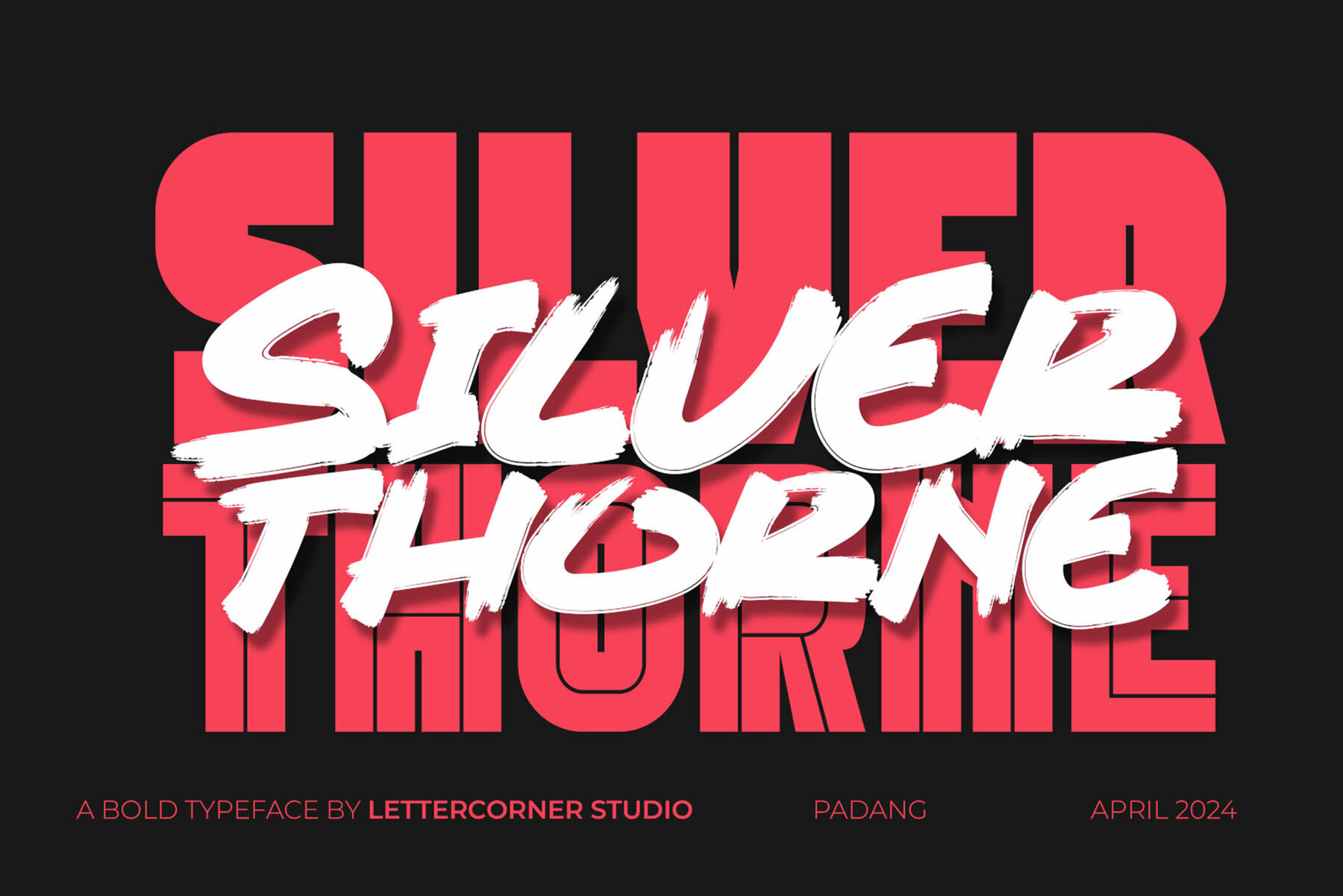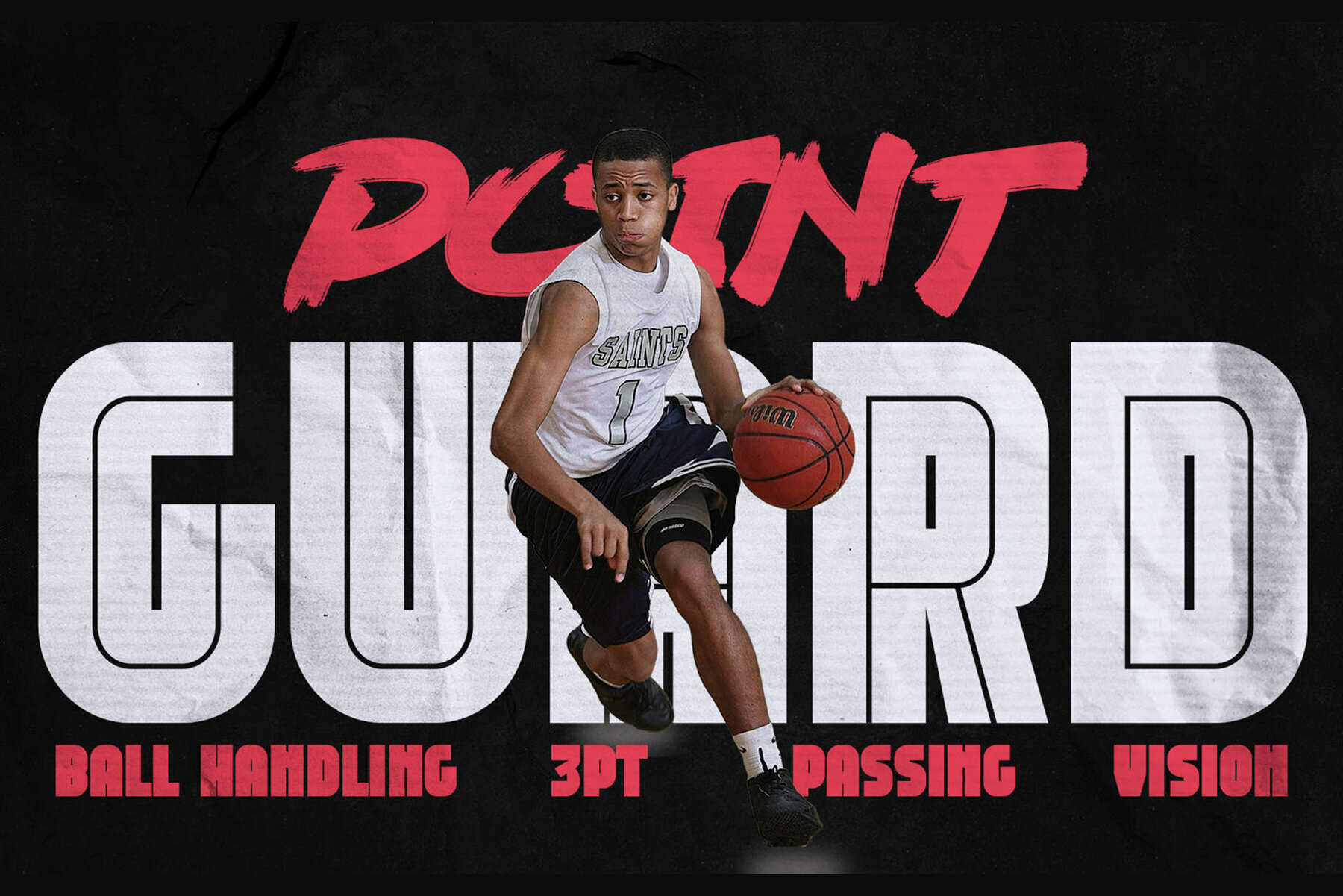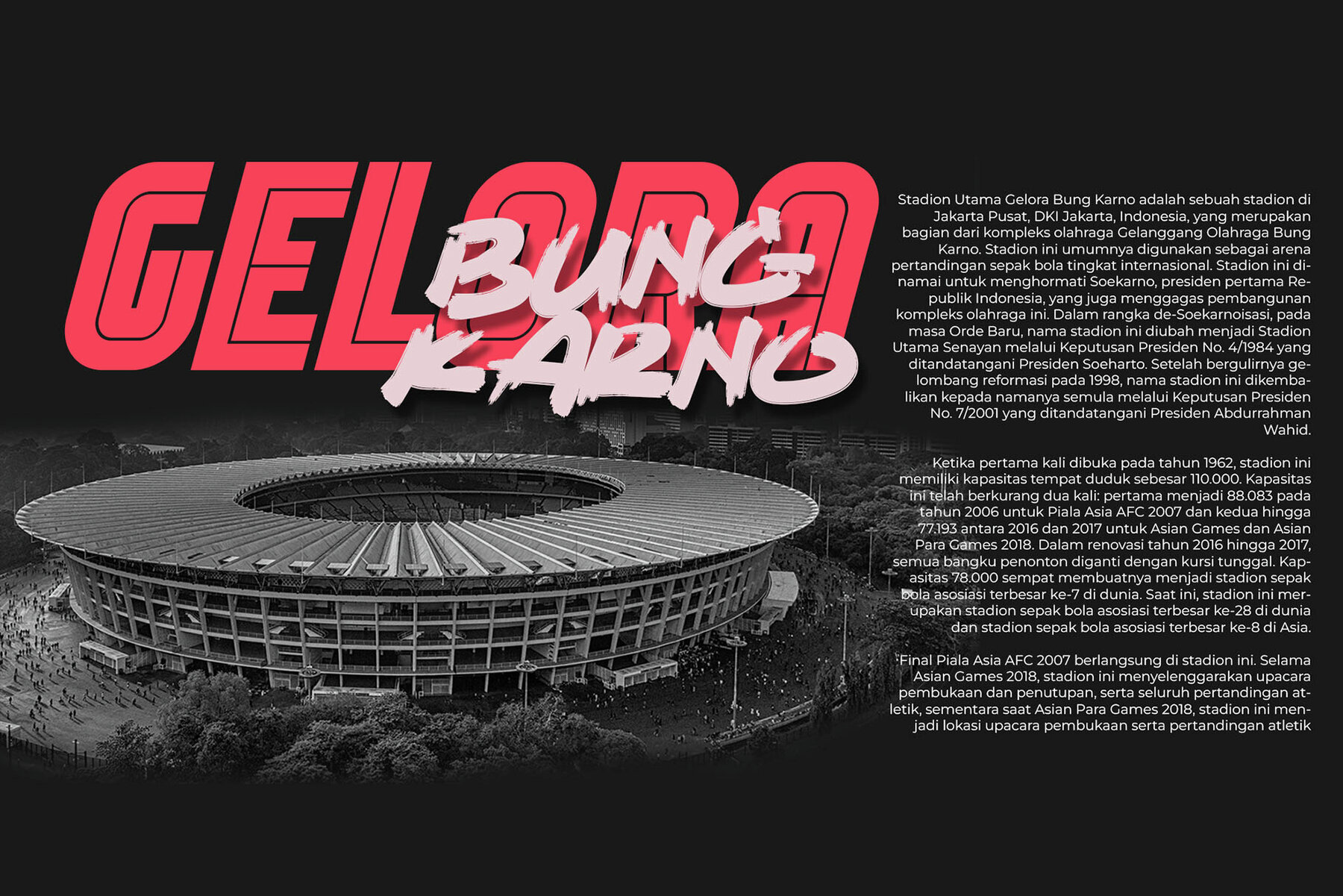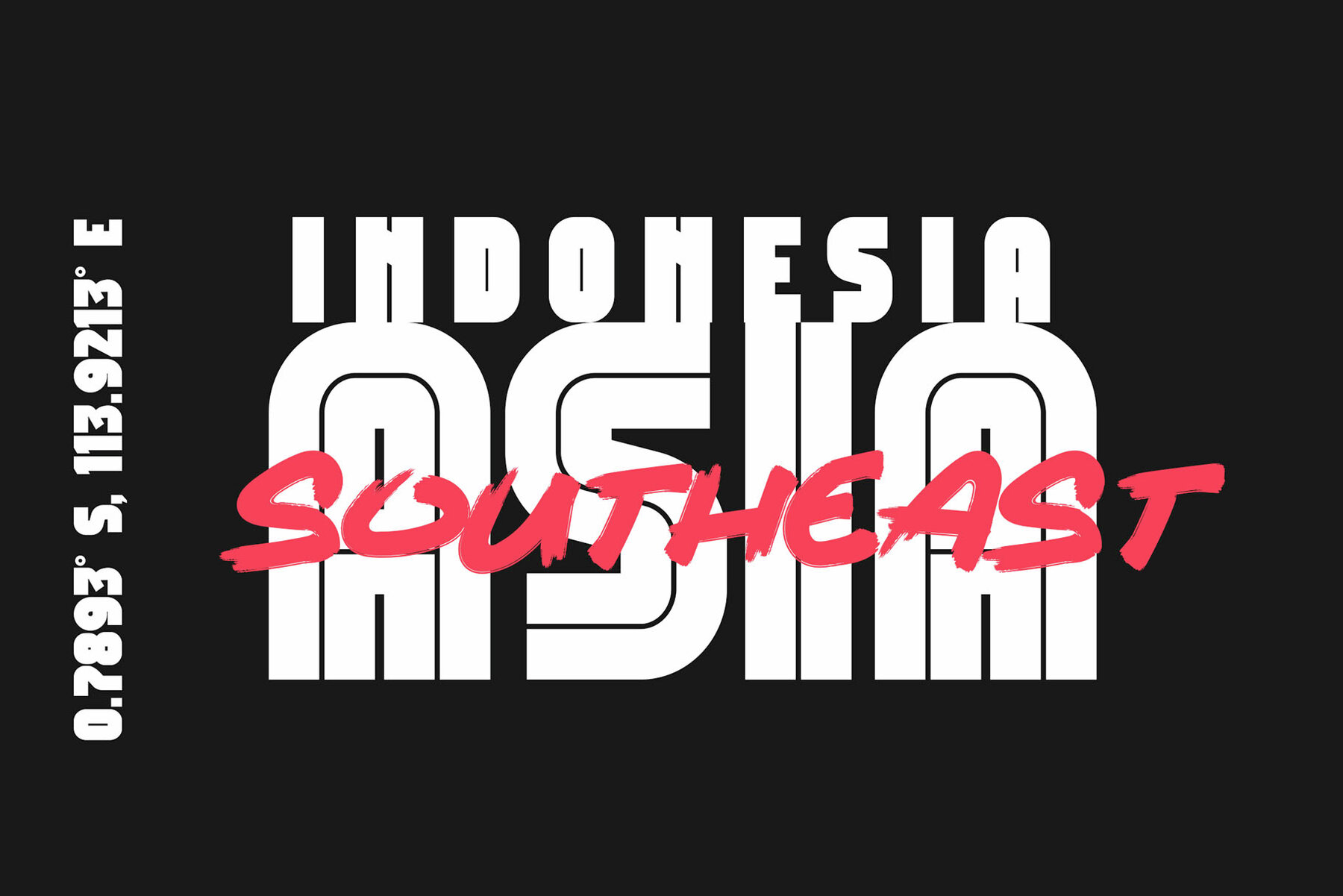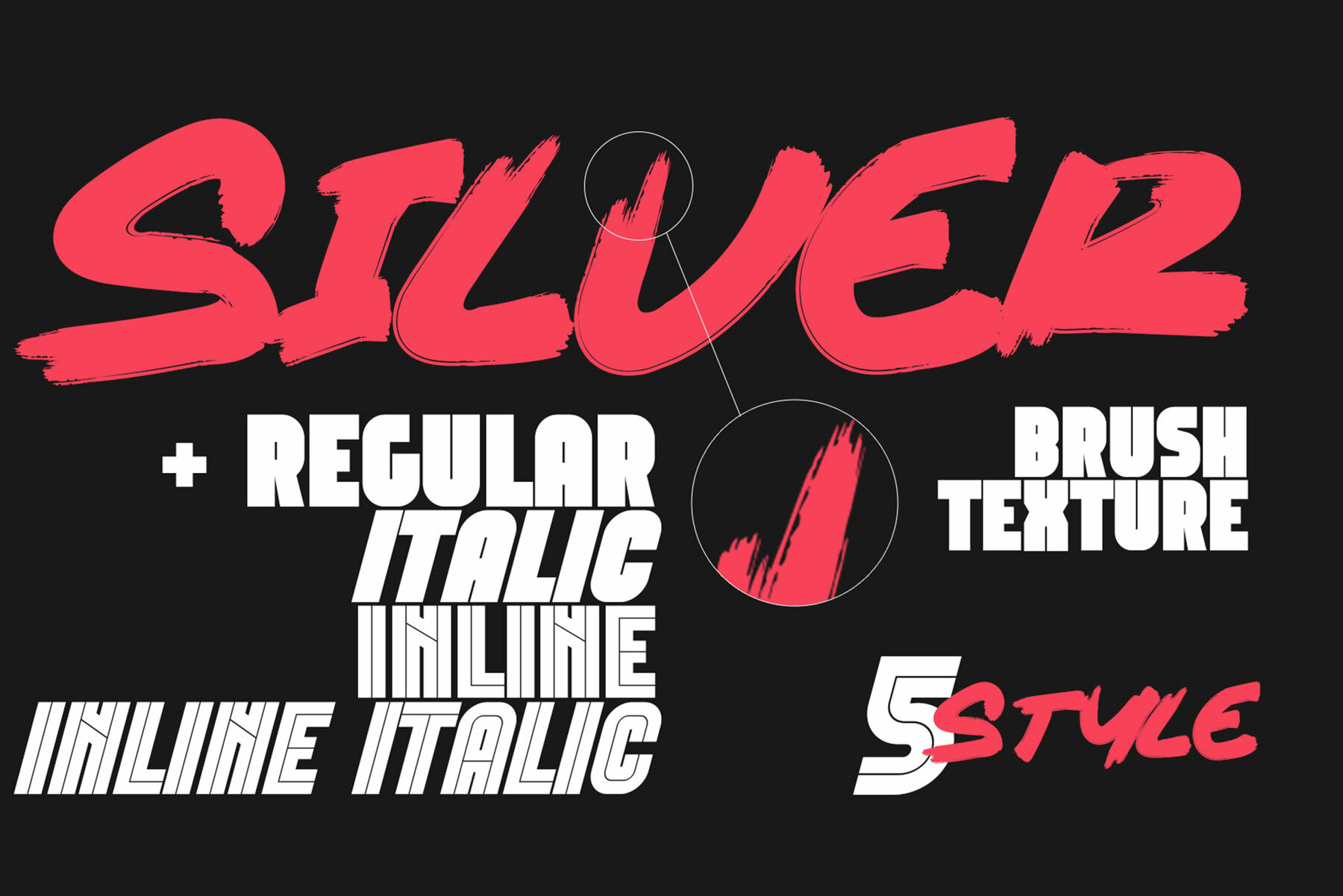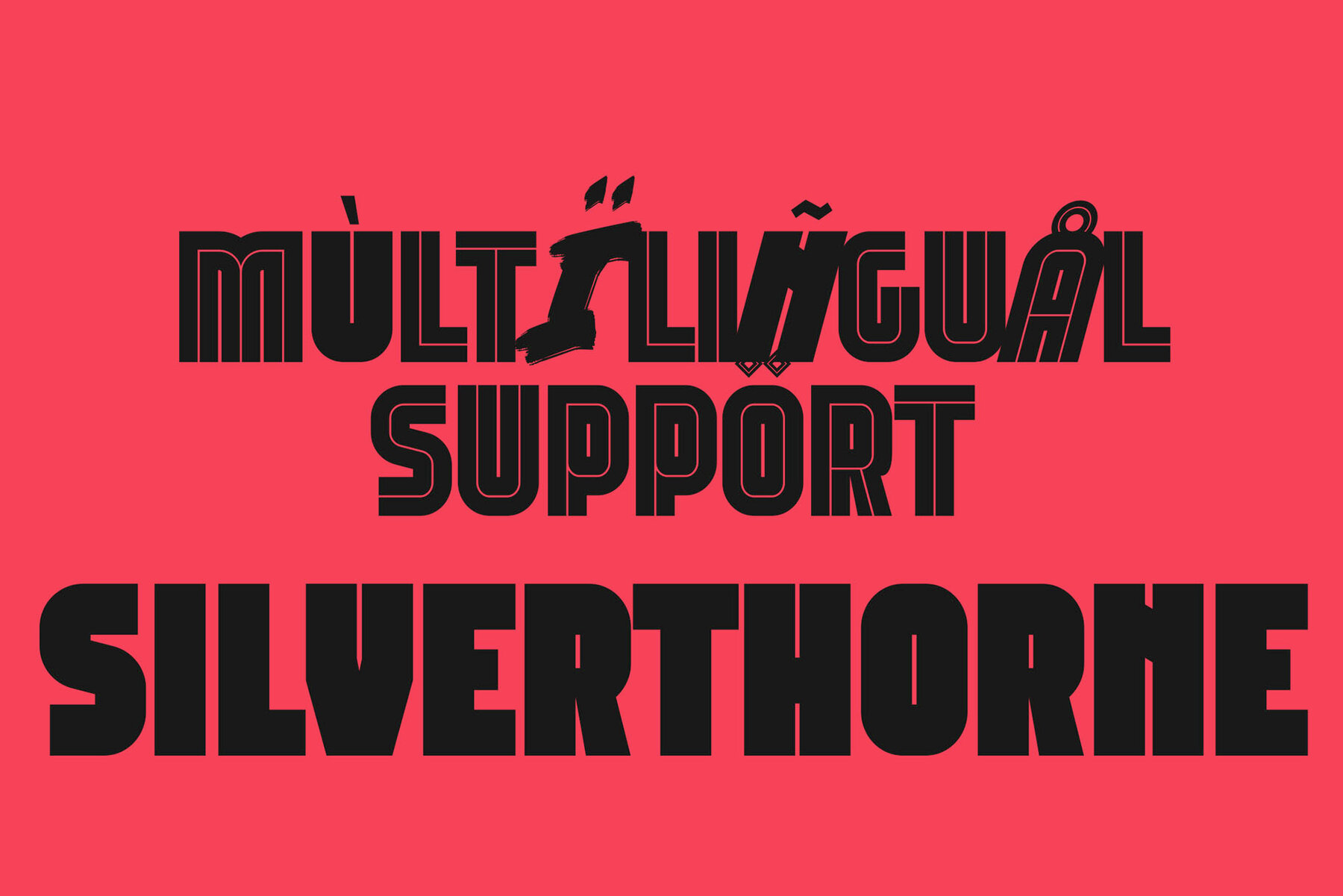
Silverthorne Font
This font is a bold, sans-serif typeface characterized by its solid and block-like letterform structure which gives it a strong and sturdy appearance. Its geometric shapes and heavy weight make it ideal for display purposes, branding, and modernist design projects. The clean lines and high-contrast design of this font lends it a contemporary and urban feel that captures attention through minimalistic but impactful visual statements.